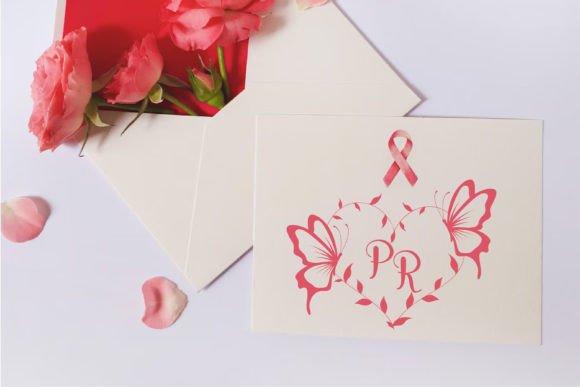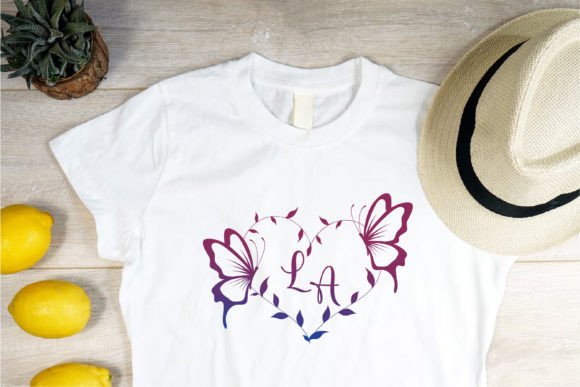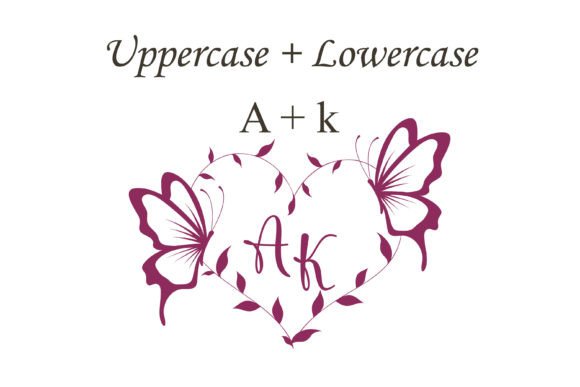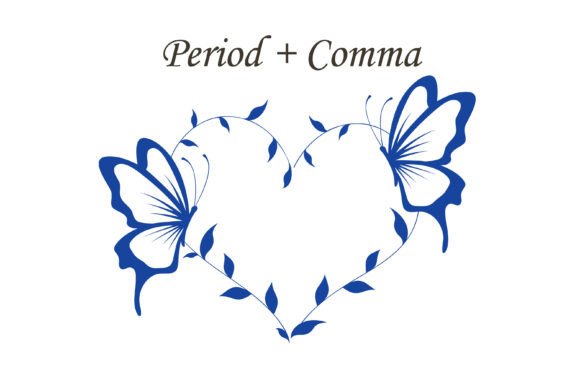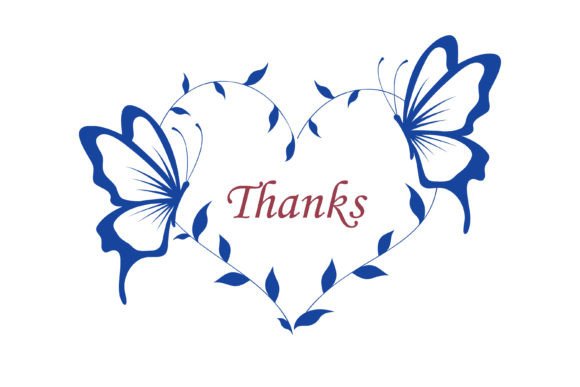
Introduction to Butterfly Couple Monogram Font
As designers, we’ve all been there – staring at a blank page, trying to conjure up the perfect design for a special occasion. For me, it’s the moment when a client asks for a custom wedding invitation that screams elegance and sophistication. And that’s where the enchanting Butterfly Couple Monogram Font comes in – a beautiful decorative font that’s sure to captivate your audience and leave a lasting impression.
Key Features of Butterfly Couple Monogram Font
- High-quality, elegant design suitable for various creative projects, such as wedding invitations, greeting cards, and social media graphics.
- Unique, customizable monogram font featuring a butterfly design element, perfect for couples who want to add a touch of whimsy to their designs.
- Transparent background, allowing for easy integration with various design elements and backgrounds.
- Easy to customize and edit, making it an excellent choice for designers who want to add a personal touch to their creative projects.
Honest Review: Butterfly Couple Monogram Font
I recently came across the Butterfly Couple Monogram Font and was excited to give it a try for a creative project. The font is a beautifully designed monogram style that’s perfect for any romantic or whimsical design.
What works well: ✨ The font is incredibly versatile and can be used for a variety of purposes, from wedding invitations to social media graphics. The high quality design is also a major plus, making it a great addition to any design project.
- Transparent background: The font has a transparent background, making it easy to layer with other design elements.
- Design resource: This font is a valuable addition to any designer’s collection, offering a unique and creative solution for design projects.
However, I did notice a few limitations: ⚠️ The font is a bit limited in its customization options, which may not be ideal for designers who want more control over their designs.
Overall, I was impressed with the Butterfly Couple Monogram Font and would definitely recommend it to designers looking for a unique and high quality design resource. With a few tweaks, this font could be a true standout in the design world.
The Butterfly Couple Monogram Font is perfect for wedding invitations, engagement announcements, and other romantic occasions. It’s also great for business cards, social media graphics, and other design projects where a touch of elegance is needed.